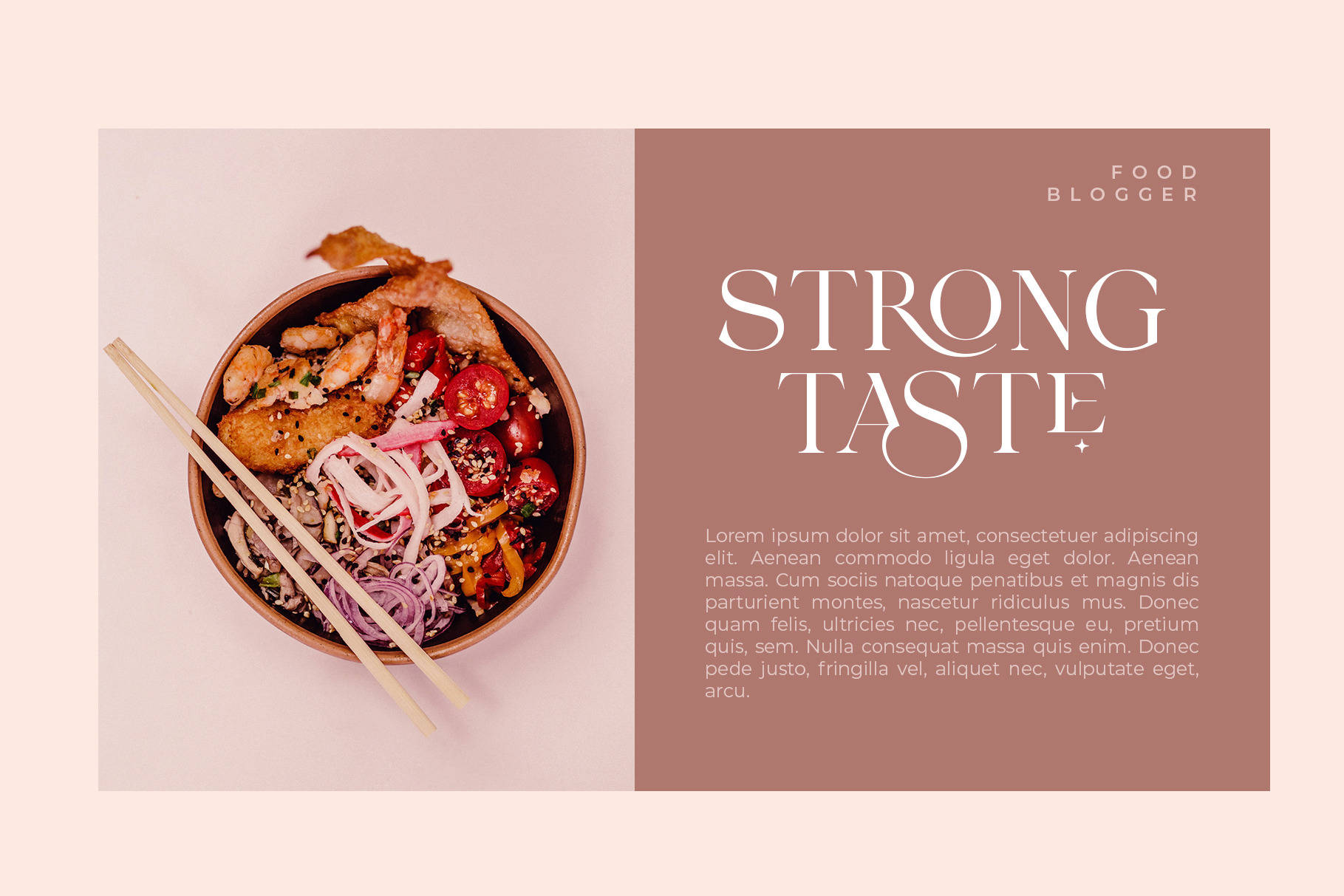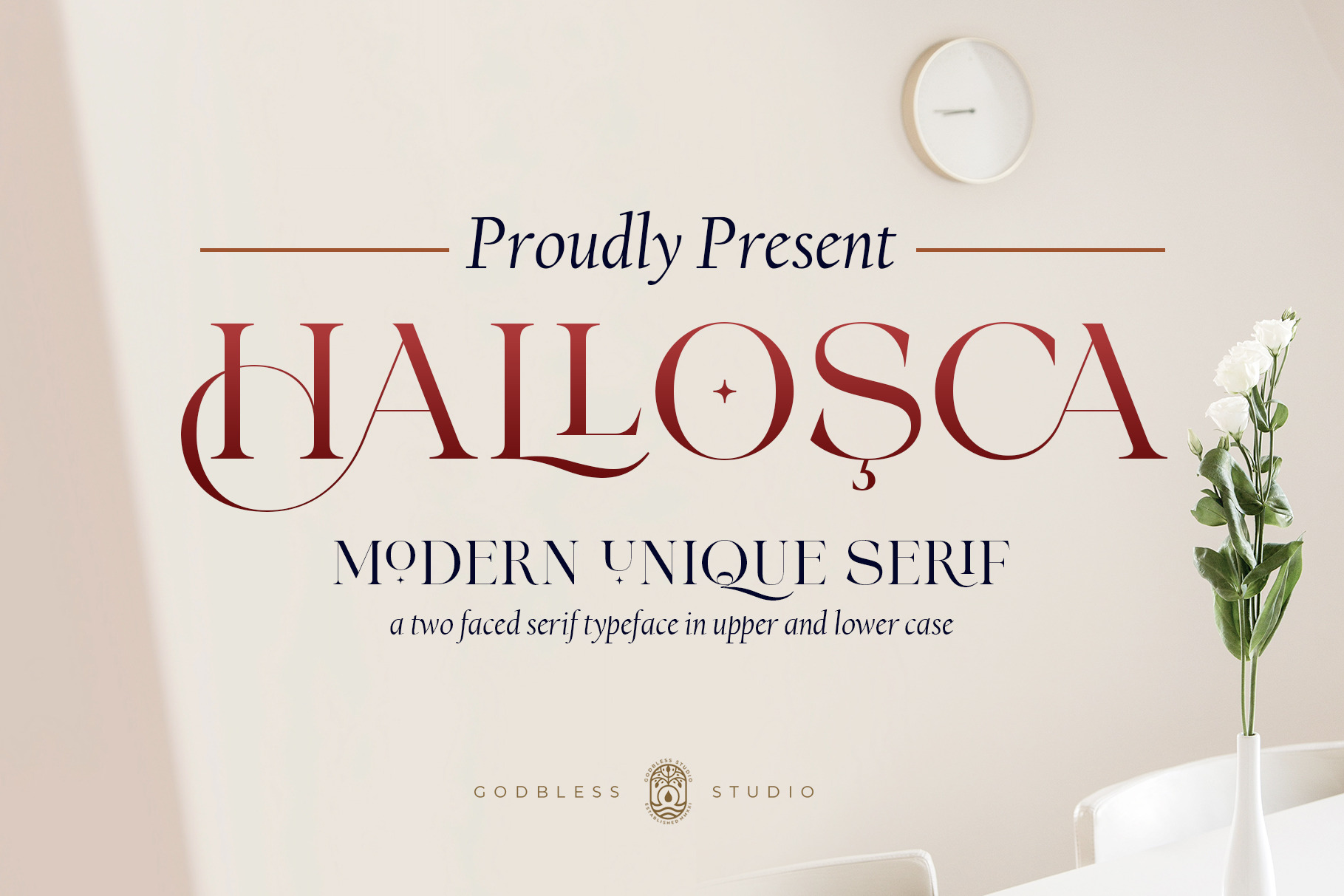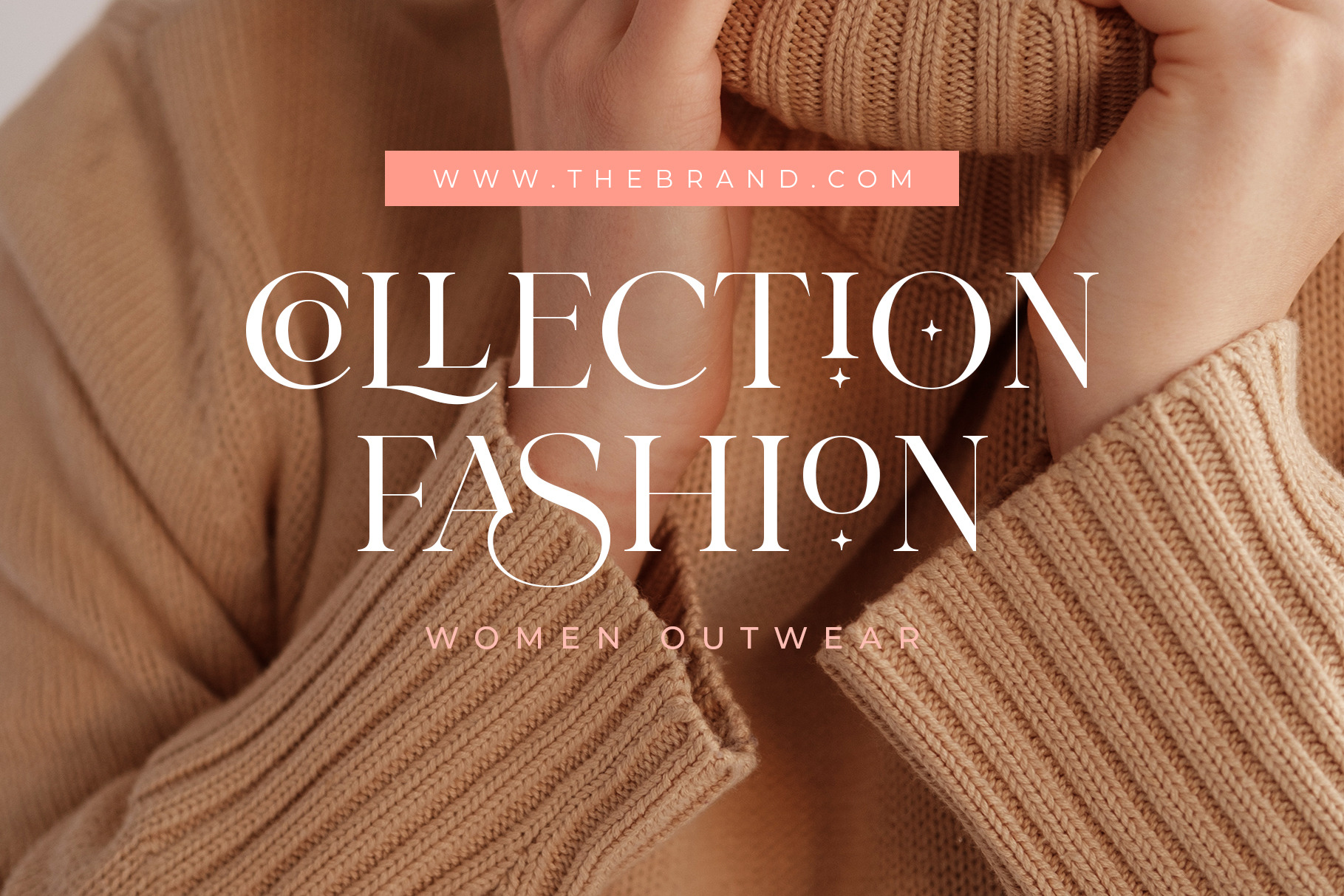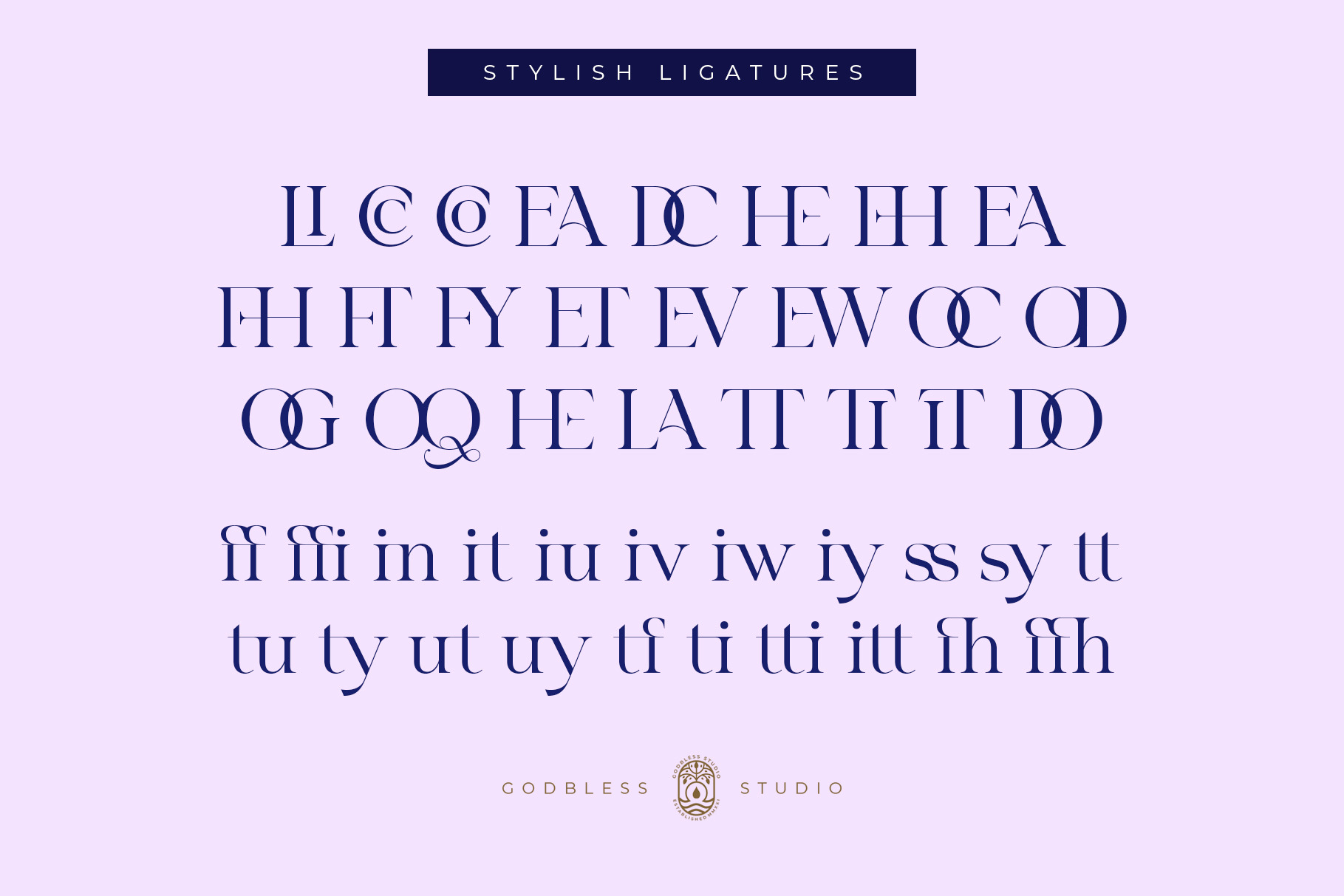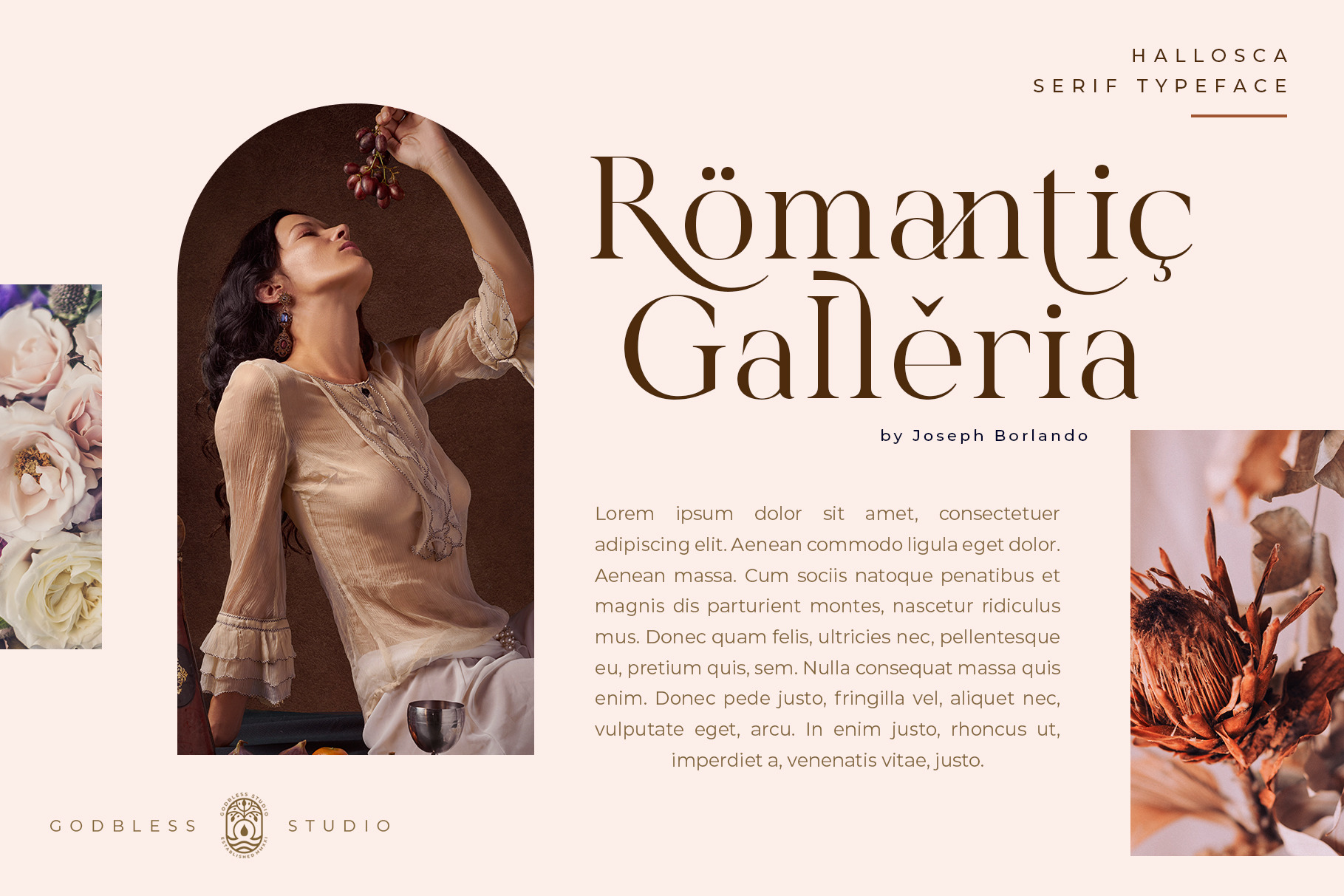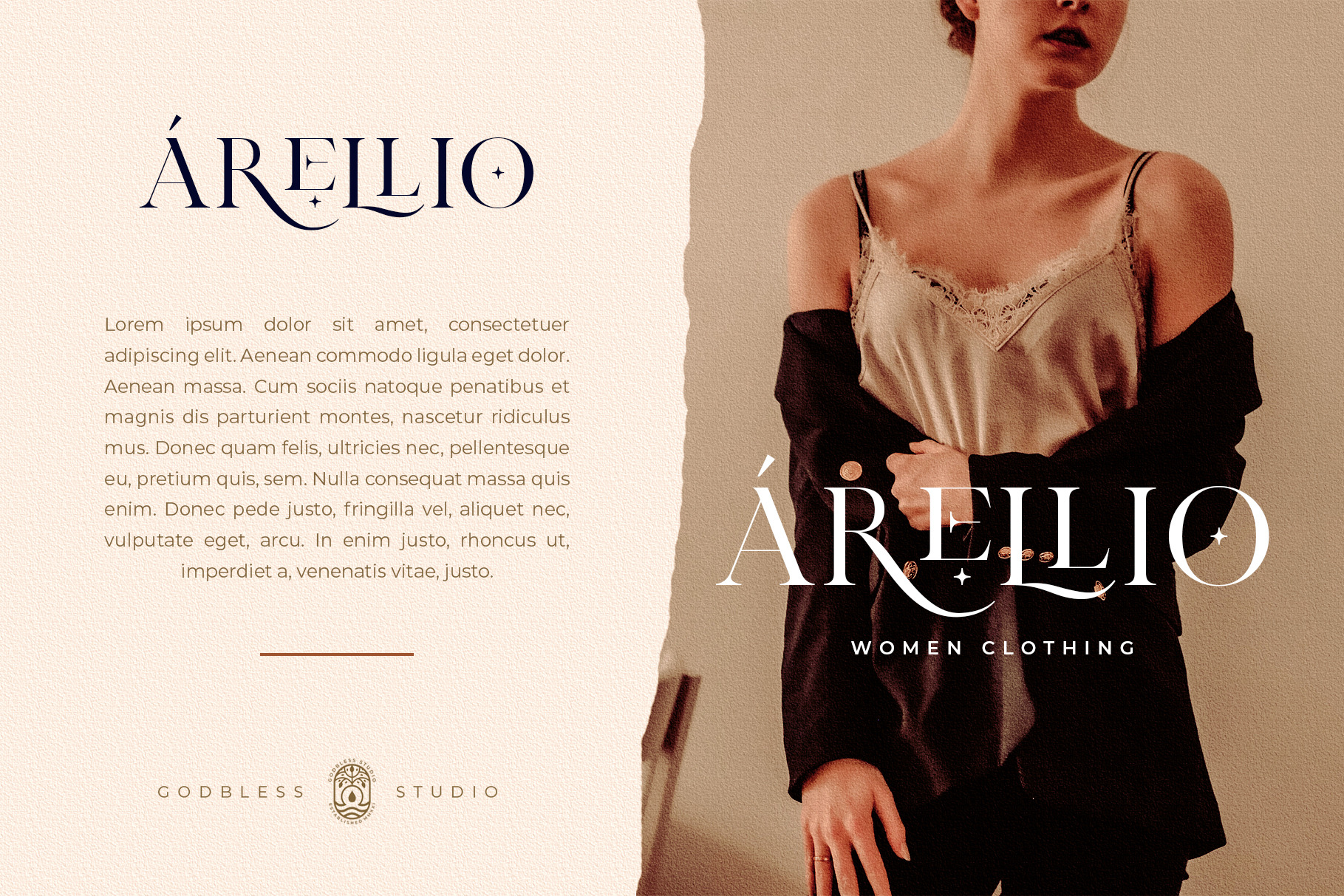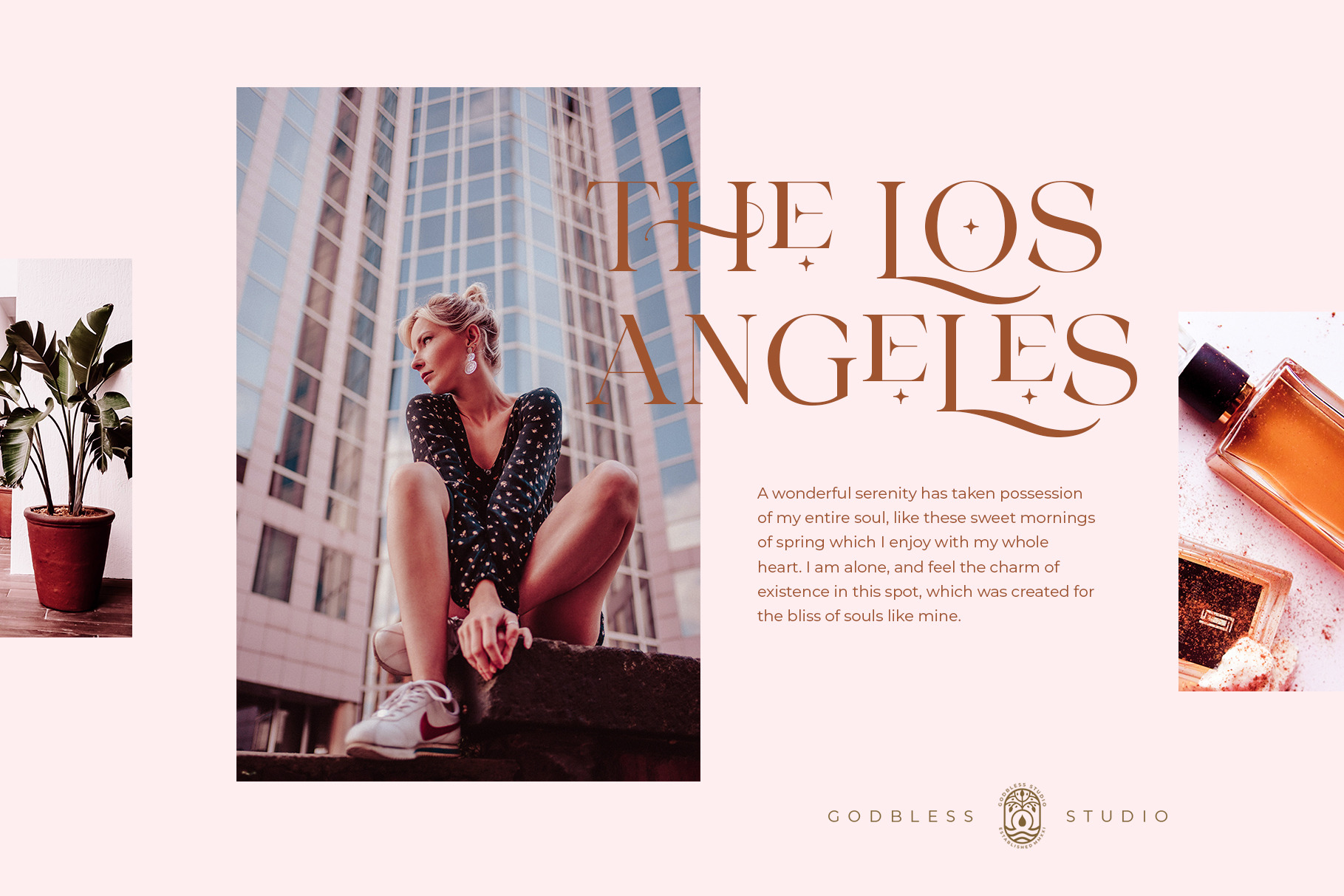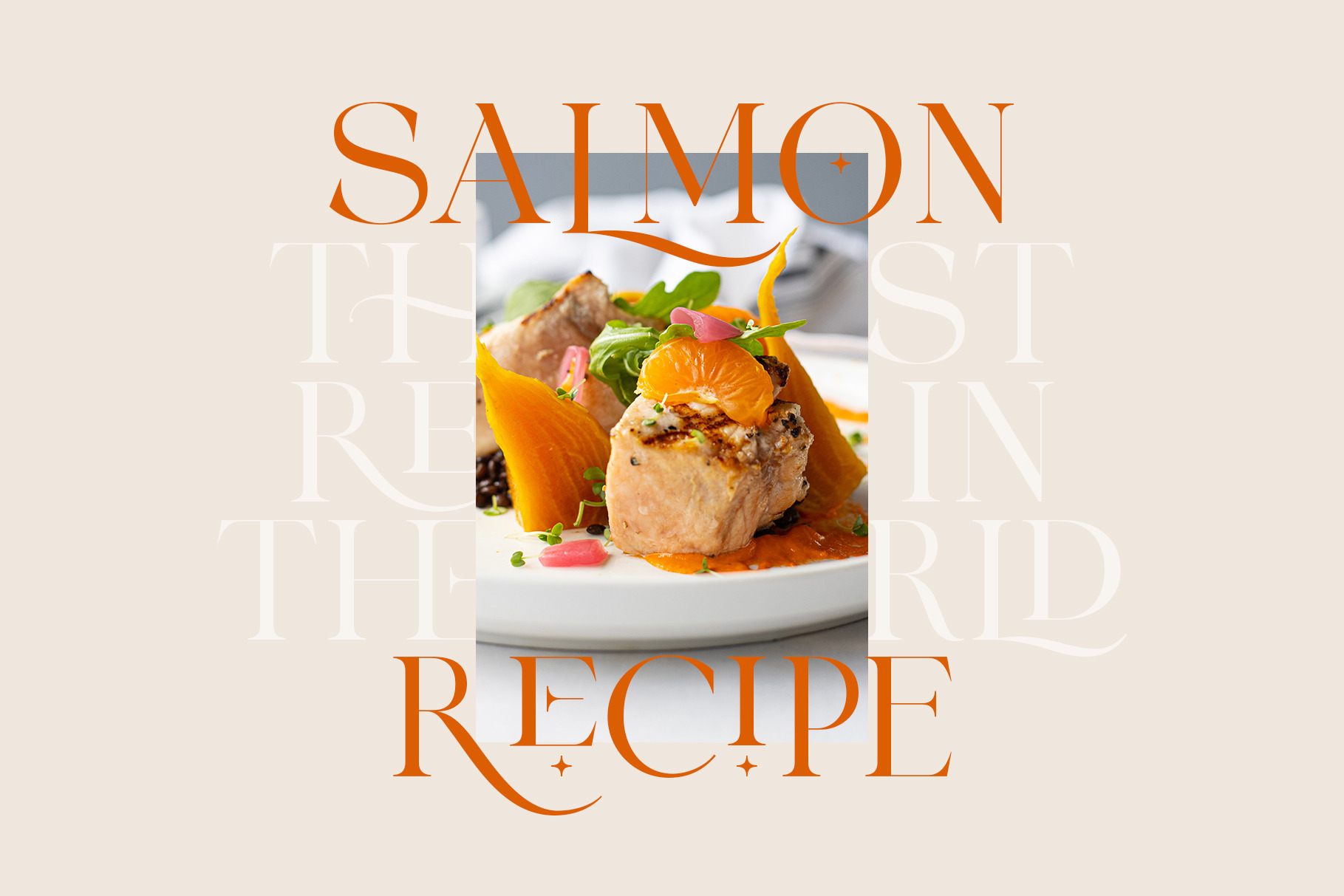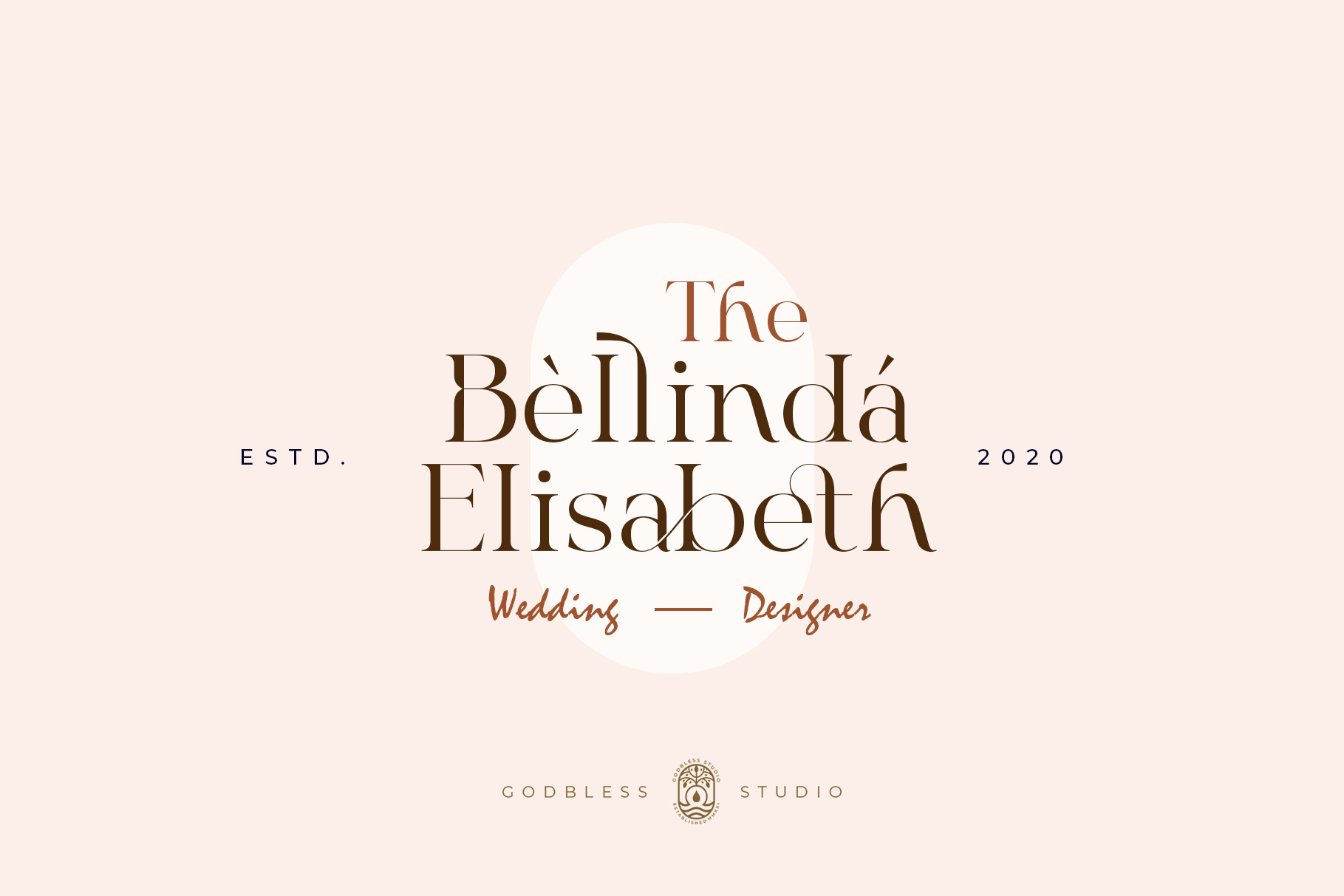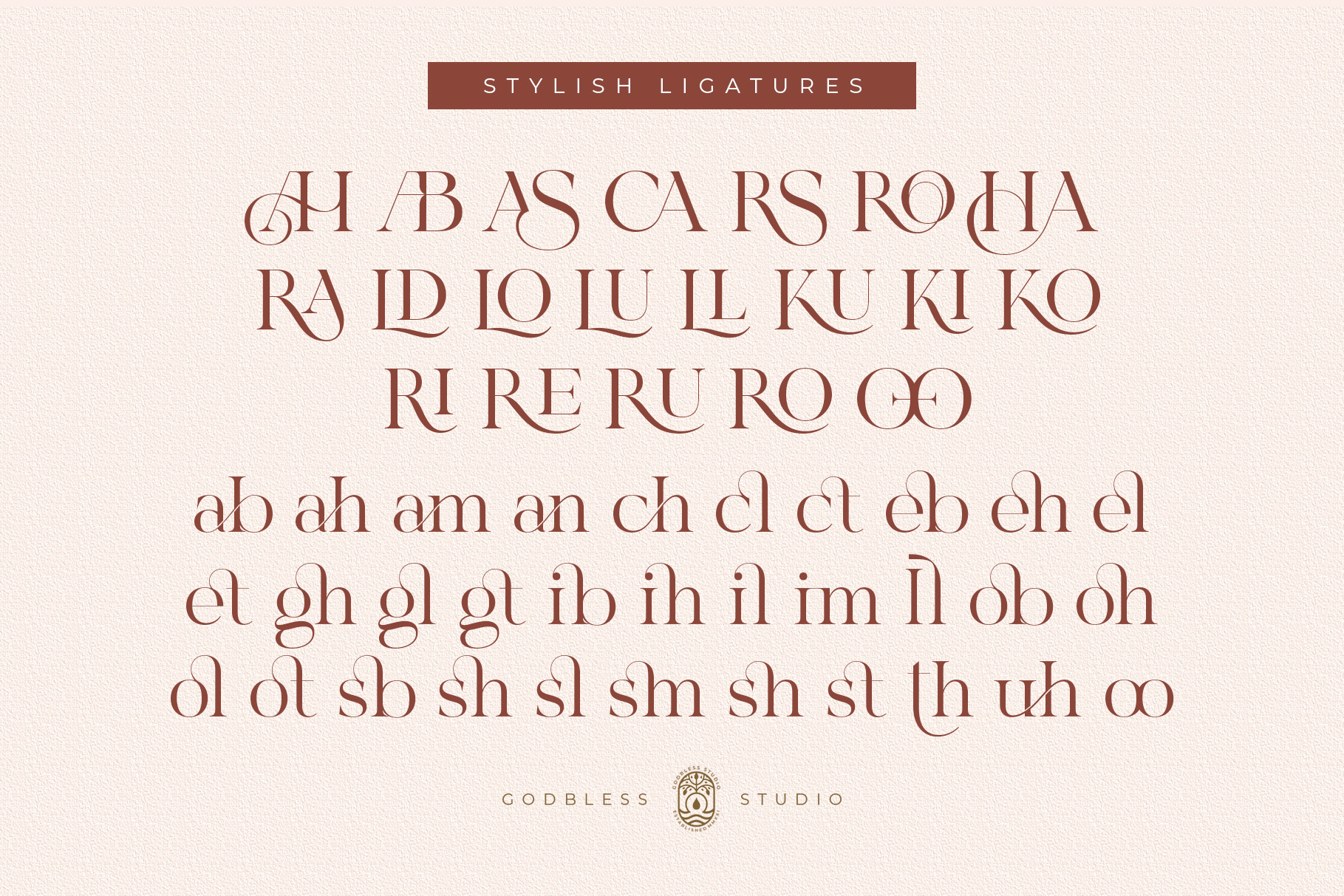
Hallosca is an elegant, unique modern serif typeface with loads of style font that uses ligatures to smoothly link letters. Perfect for adding a unique twist to word-mark logos, monograms or pull quotes. It's soft curves mixed with high contrast glyphs lend it self to both feminine and masculine qualities. You will get classy, elegant, and certainly unique logos with this font. Hallosca is also included full set of: - Uppercase & Lowercase letters - Stylistic Alternates Character - Multilingual characters - Numerals - Punctuation - Ligatures Collection What will you get - Hallosca. otf - Hallosca. ttf - Hallosca. woff2 - Wish you enjoy our font and if you have a question, don't hesitate to drop message & I'm happy to help. | Hallosca Serif Typeface | Godbless Studio